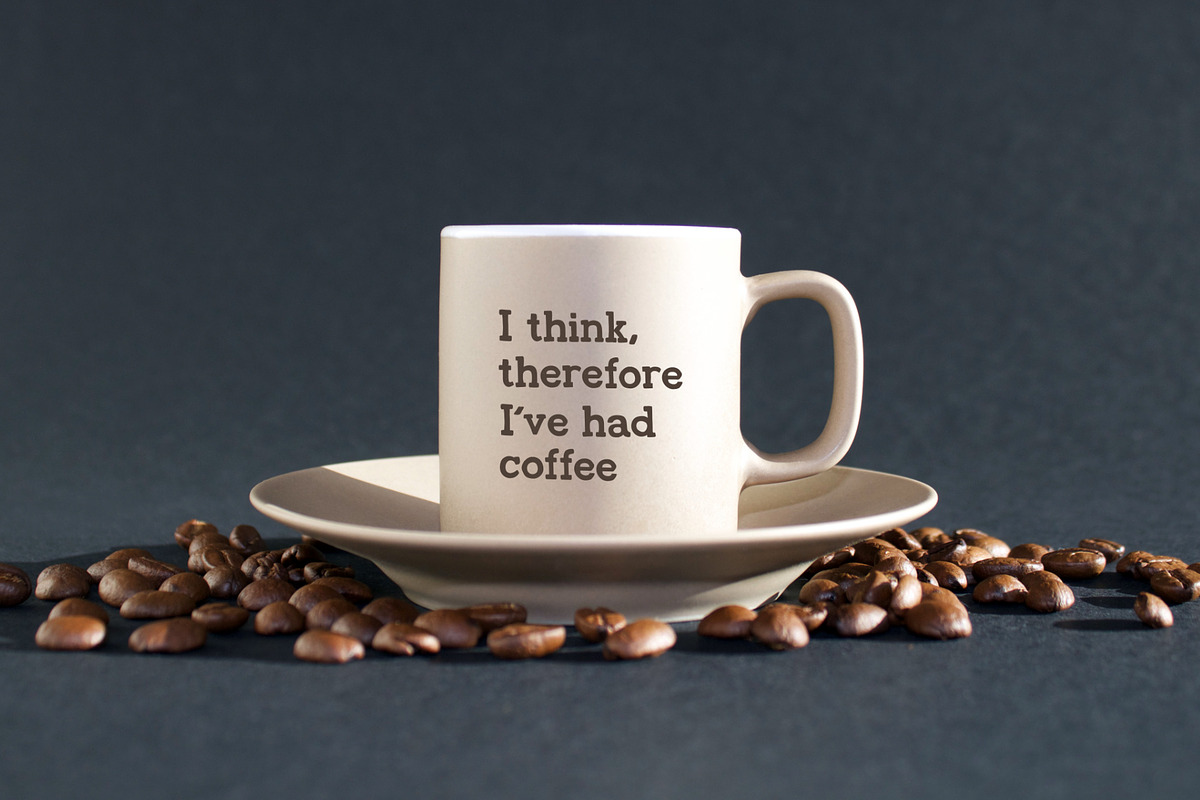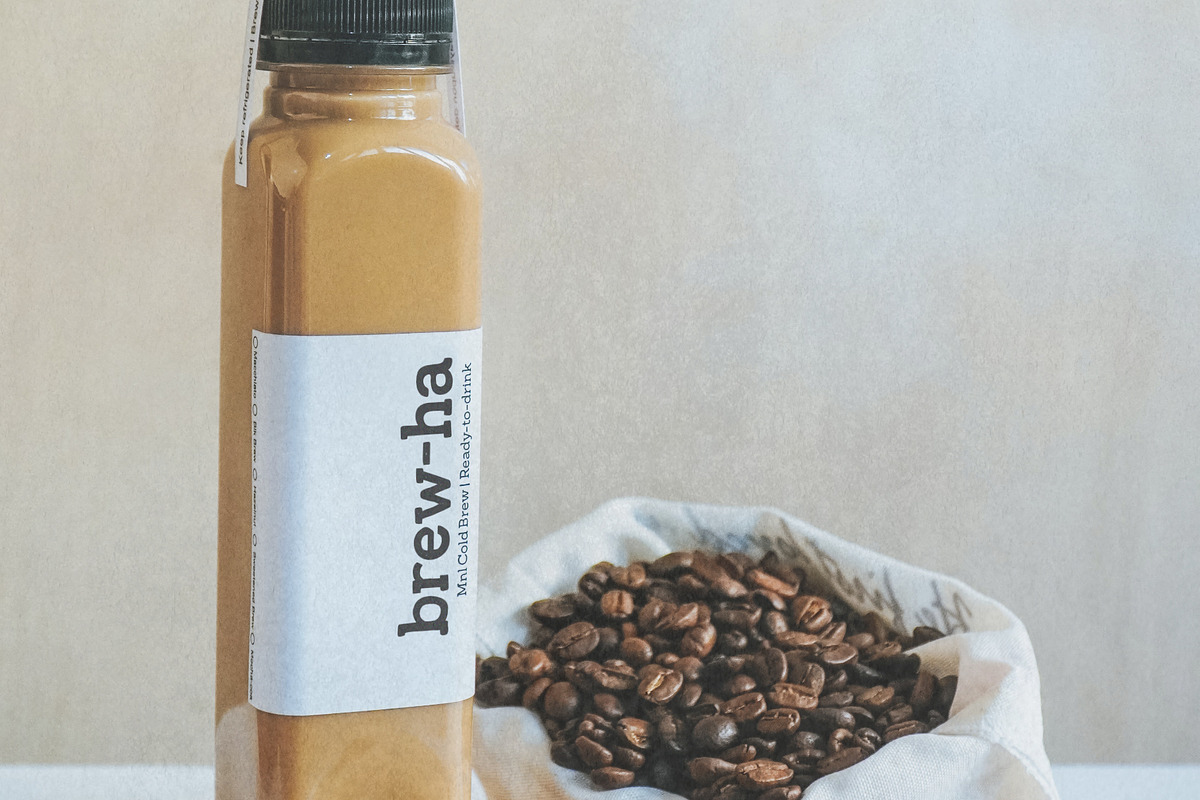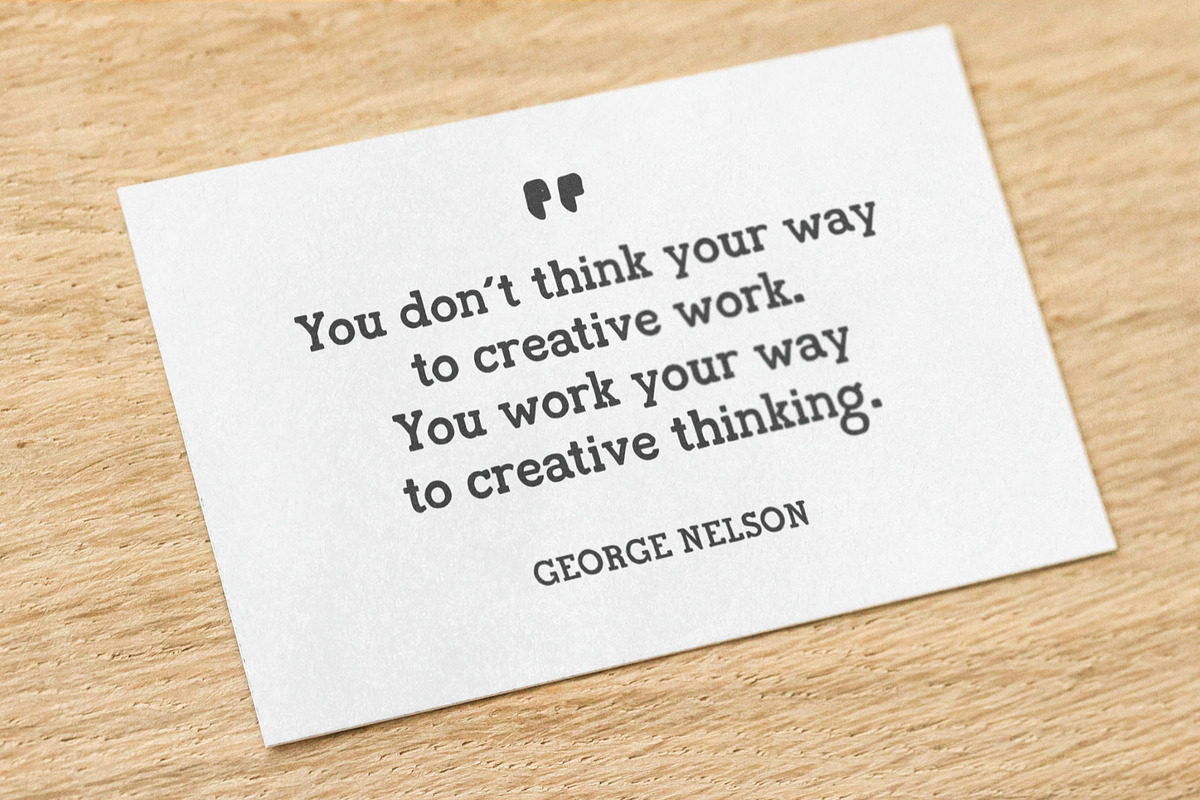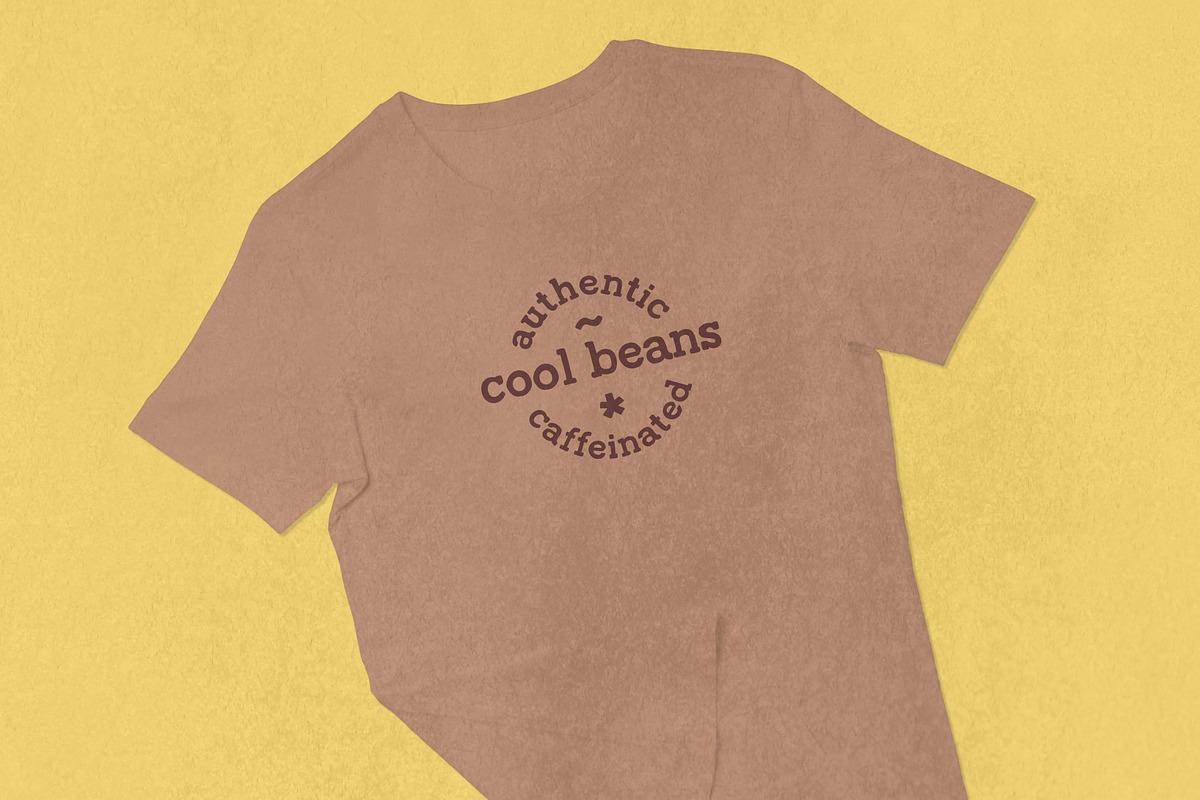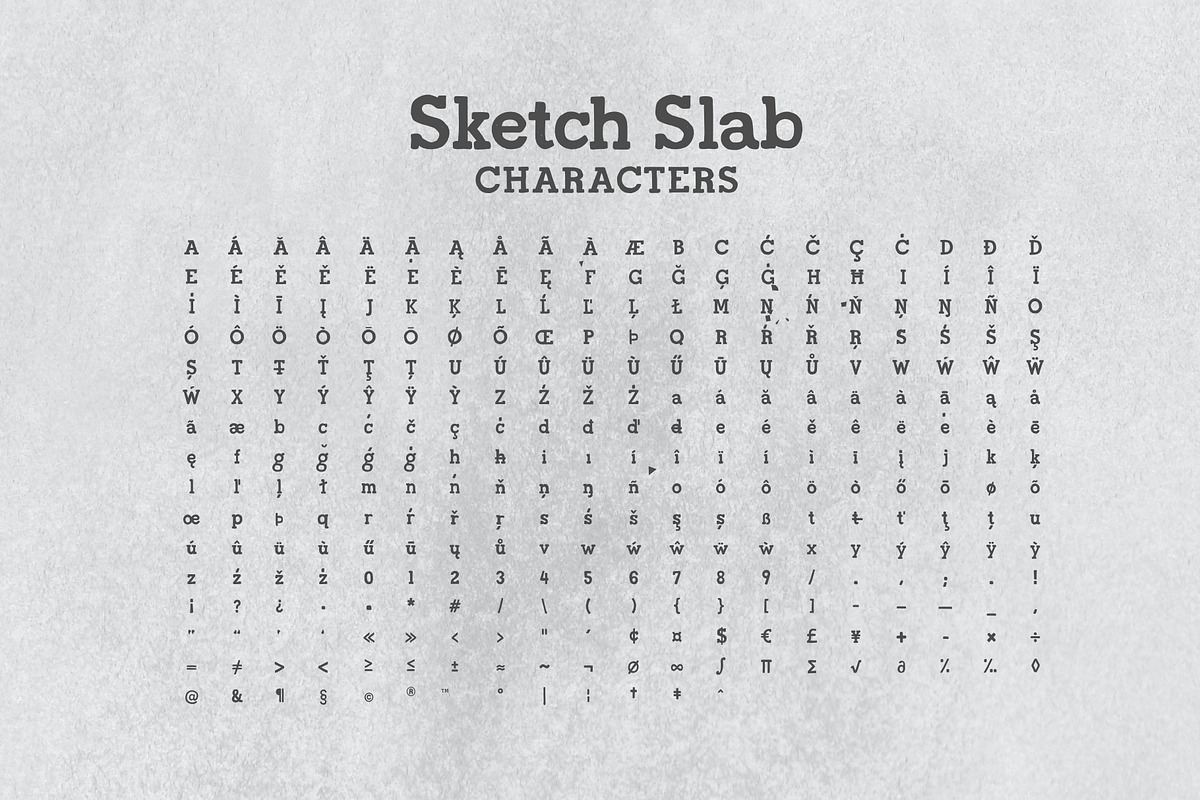
Sketch Slab
SketchSlab is a casual slab serif type with a rough, handmade feel. Strokes and serifs are relatively thick, giving it a strong, bold flavor.